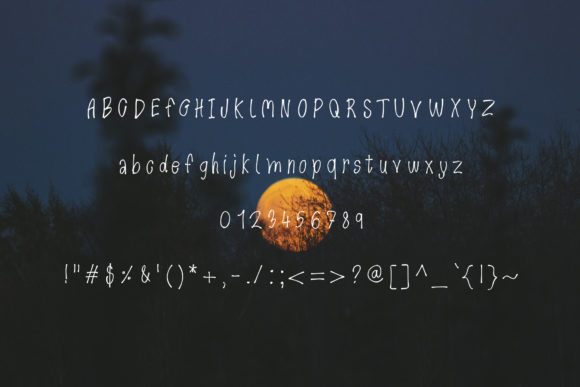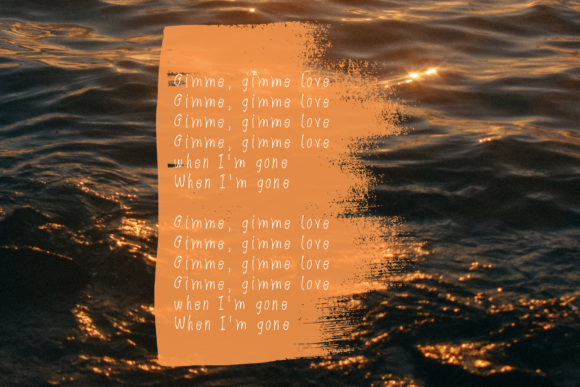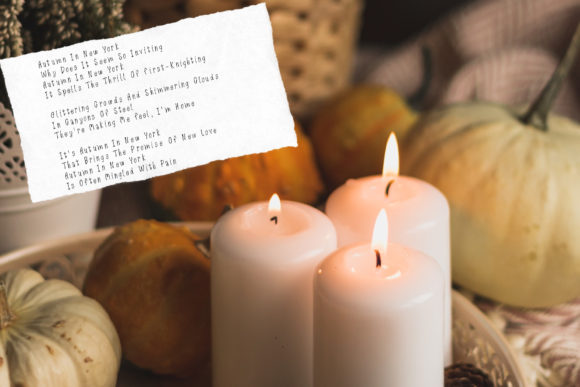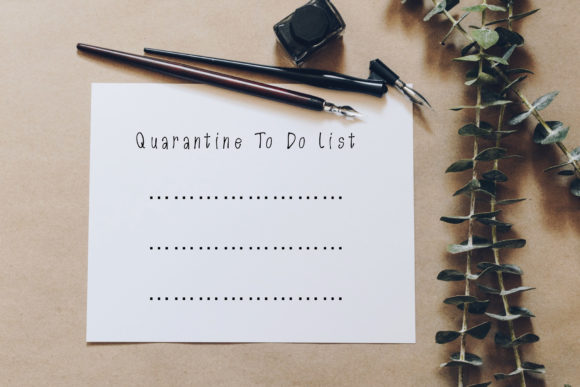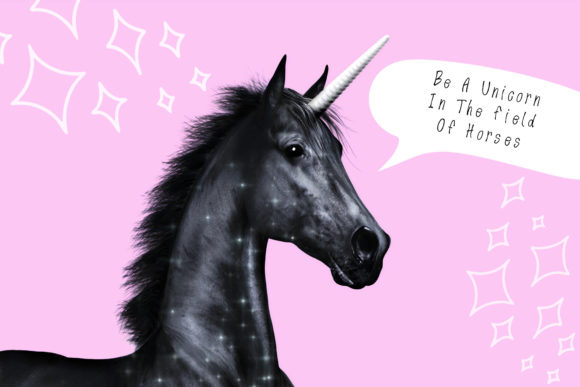
Gimme Love Font: The Sweet and Friendly Handwritten Font for Your Design Needs
Are you a designer or crafter looking for a font that can add a personal touch to your projects? Look no further than Gimme Love Font, a sweet and friendly handwritten font that’s perfect for a wide range of designs. With its natural and unique style, Gimme Love Font is incredibly versatile and can be used for everything from greeting cards to branding materials.
The Characteristics of Gimme Love Font
Gimme Love Font is a handwritten font that’s designed to look like it was written with love. Its natural and unique style makes it stand out from more traditional fonts, and its friendly tone is sure to make your designs feel approachable and inviting. The font is highly legible, making it perfect for use in both digital and print designs.
The Benefits of Using Gimme Love Font
So why choose Gimme Love Font for your design needs? Here are just a few benefits of using this sweet and friendly font:
- Versatility: Gimme Love Font is incredibly versatile and can be used for a wide range of designs, from greeting cards to branding materials.
- Unique Style: The font’s natural and unique style makes it stand out from more traditional fonts and adds a personal touch to your designs.
- Legibility: Gimme Love Font is highly legible, making it perfect for use in both digital and print designs.
How to Use Gimme Love Font in Your Designs
So how can you use Gimme Love Font in your designs? Here are a few ideas to get you started:
- Greeting Cards: Use Gimme Love Font to create personalized greeting cards for special occasions like birthdays, weddings, and holidays.
- Branding Materials: Use the font to create unique and memorable branding materials like logos, business cards, and brochures.
- Digital Designs: Use Gimme Love Font in your digital designs, such as social media graphics, blog posts, and email newsletters.
- Crafting Projects: Use the font to add a personal touch to your crafting projects, such as scrapbooking, journaling, and card making.
Tips for Getting the Most Out of Gimme Love Font
Here are a few tips for getting the most out of Gimme Love Font:
- Experiment with Different Sizes: Try using Gimme Love Font in different sizes to create visual interest and add emphasis to your designs.
- Combine with Other Fonts: Combine Gimme Love Font with other fonts to create a unique and visually appealing design.
- Use in Combination with Images: Use Gimme Love Font in combination with images to create a design that’s both visually appealing and informative.
| Font Name | Gimme Love Font |
| Author | Nuchylee |
Gimme Love Font is a sweet and friendly handwritten font that’s perfect for designers and crafters looking to add a personal touch to their projects. With its natural and unique style, Gimme Love Font is incredibly versatile and can be used for a wide range of designs. Whether you’re creating greeting cards, branding materials, or digital designs, Gimme Love Font is sure to make your designs feel approachable and inviting.